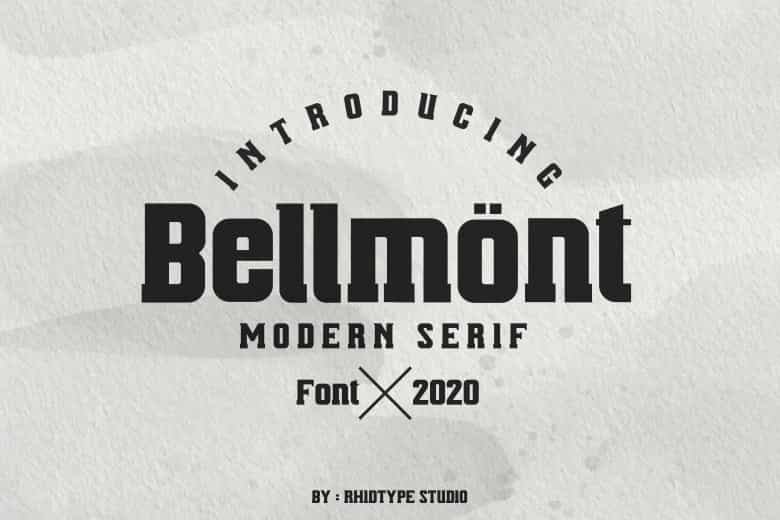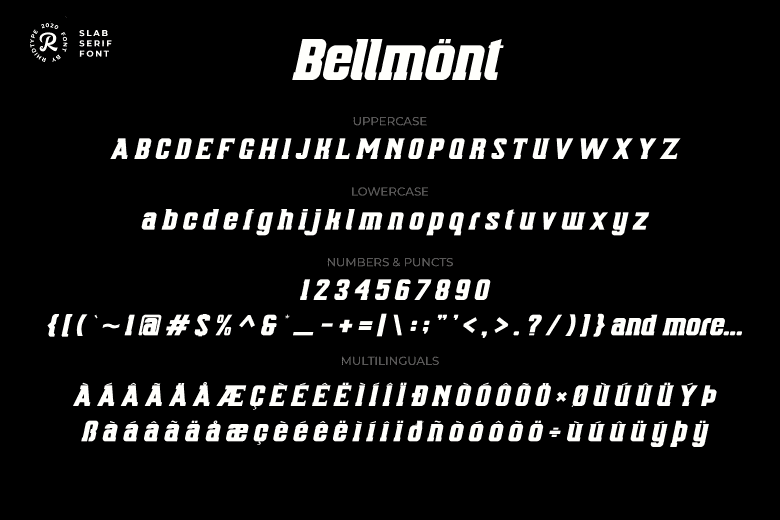
Bellmont is a modern and very versatile slab serif font with rather sturdy serifs which provide the font with some industrial-like vibe without losing the geometry of structures of its glyphs. Hence, this font can be used in many different tasks ranging from logo creation to posters and packages, invites, titles on T-shirts, titles on web pages and many others.